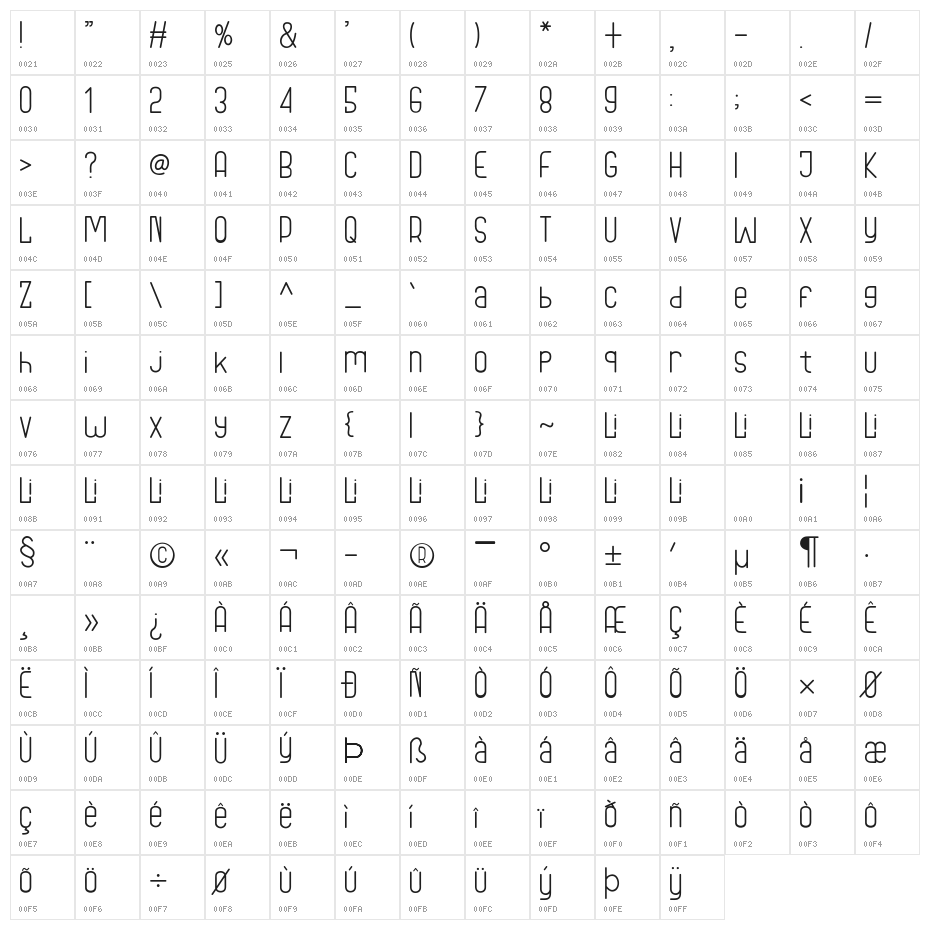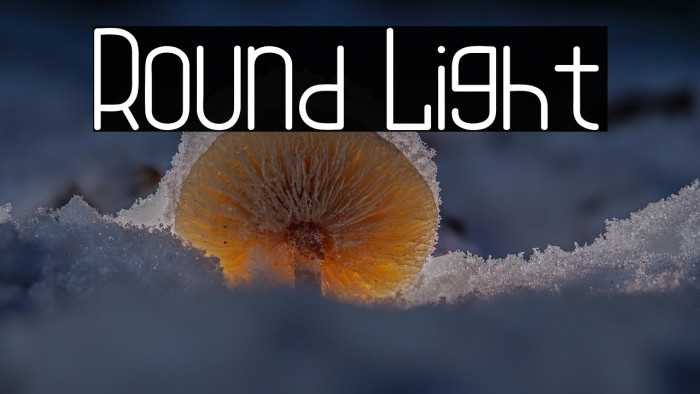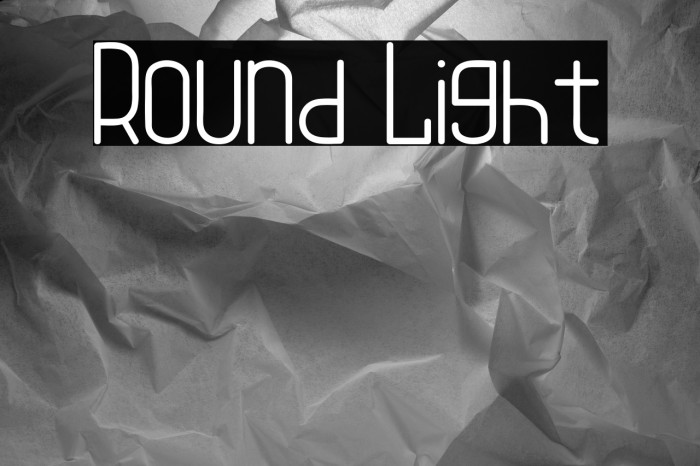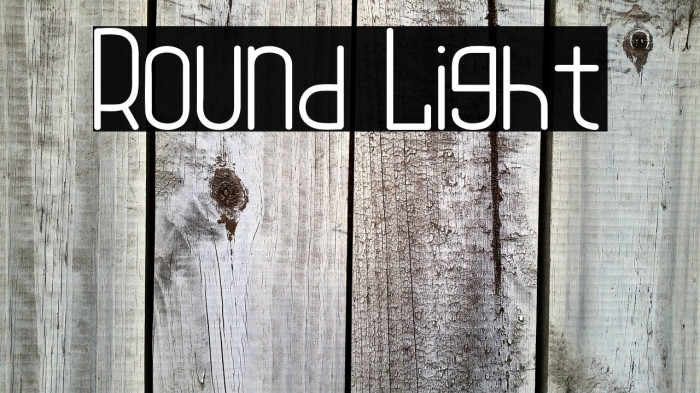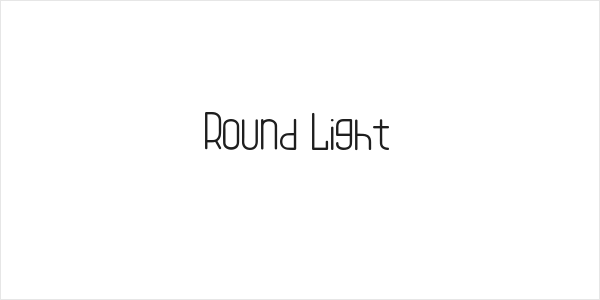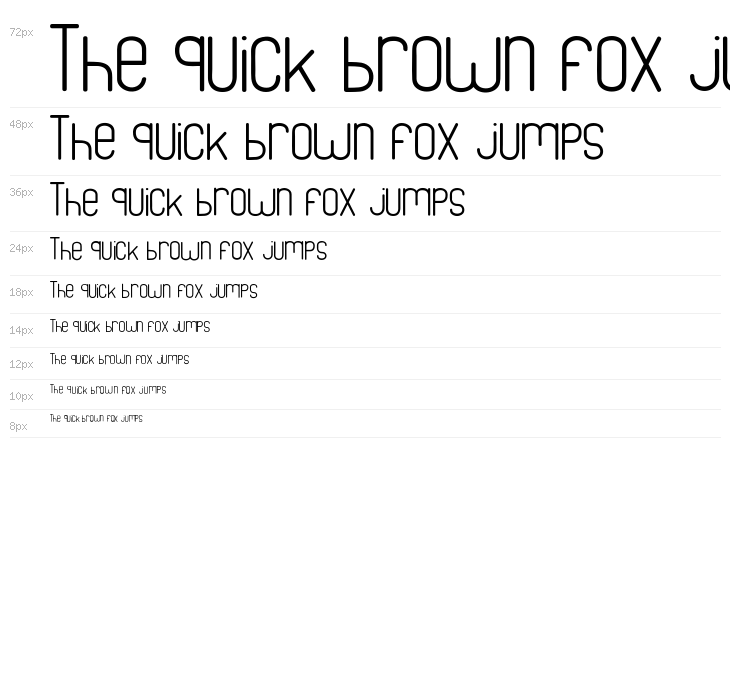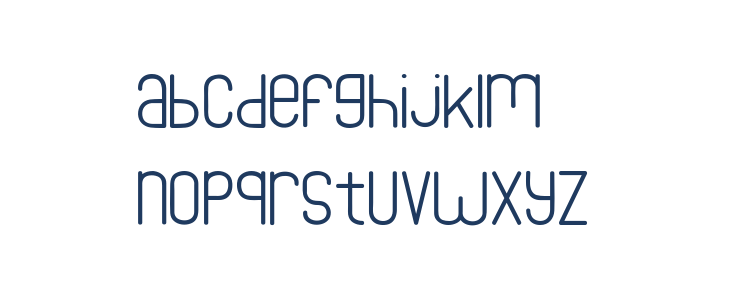
Round Light Font
Round Light Description
This font features a modern and sleek design with rounded edges and a light weight, giving it a friendly and approachable appearance. The characters are uniformly structured with consistent stroke thickness, creating a harmonious and balanced look. The uppercase and lowercase letters maintain a geometric style, with a slight variation in height that adds to its contemporary feel. The numerals and special characters are designed to complement the alphabet, ensuring readability and aesthetic appeal. This font is versatile, suitable for various design projects that require a clean and modern touch.